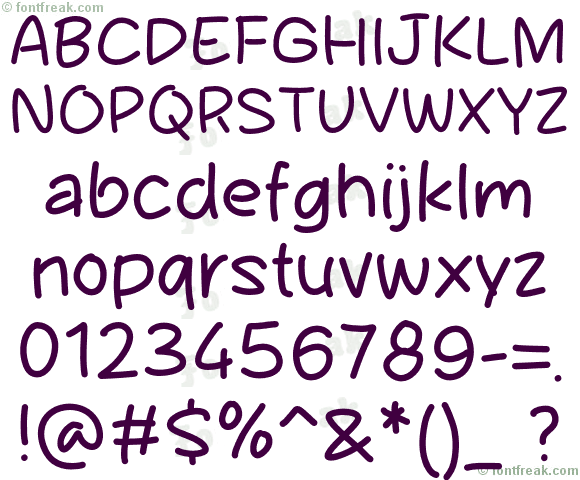
Suphand
Suphand by MJType is a delightful handwritten font that radiates warmth and personality. This font exhibits a casual, yet polished style, making it perfect for a variety of design applications. The strokes are characterized by a medium weight, providing a balanced appearance with subtle contrast that enhances readability. The letterforms are slightly irregular, mimicking the natural flow of human handwriting, which adds an inviting touch to any project. The spacing between characters is generous, ensuring clarity and ease of reading, while the playful curves of the letters contribute to its charming aesthetic.
Ideal use cases for the Suphand font include wedding invitations, where its friendly style can evoke a sense of joy and celebration. It also works wonderfully for greeting cards, allowing messages to feel personal and heartfelt. Restaurant menus can benefit from its casual elegance, helping to create a welcoming atmosphere for diners. Additionally, this font is a great choice for social media graphics, as it can easily capture attention and engage audiences. Small business owners looking to establish a friendly brand identity will find Suphand particularly appealing.
What sets Suphand apart is its ability to blend professionalism with a sense of playfulness. Whether you're designing for a heartfelt occasion or a casual event, this font brings a distinctive flair that captures the essence of the moment. Don’t miss the opportunity to enhance your creative projects with the Suphand font free download, and let its charm shine through in your designs.